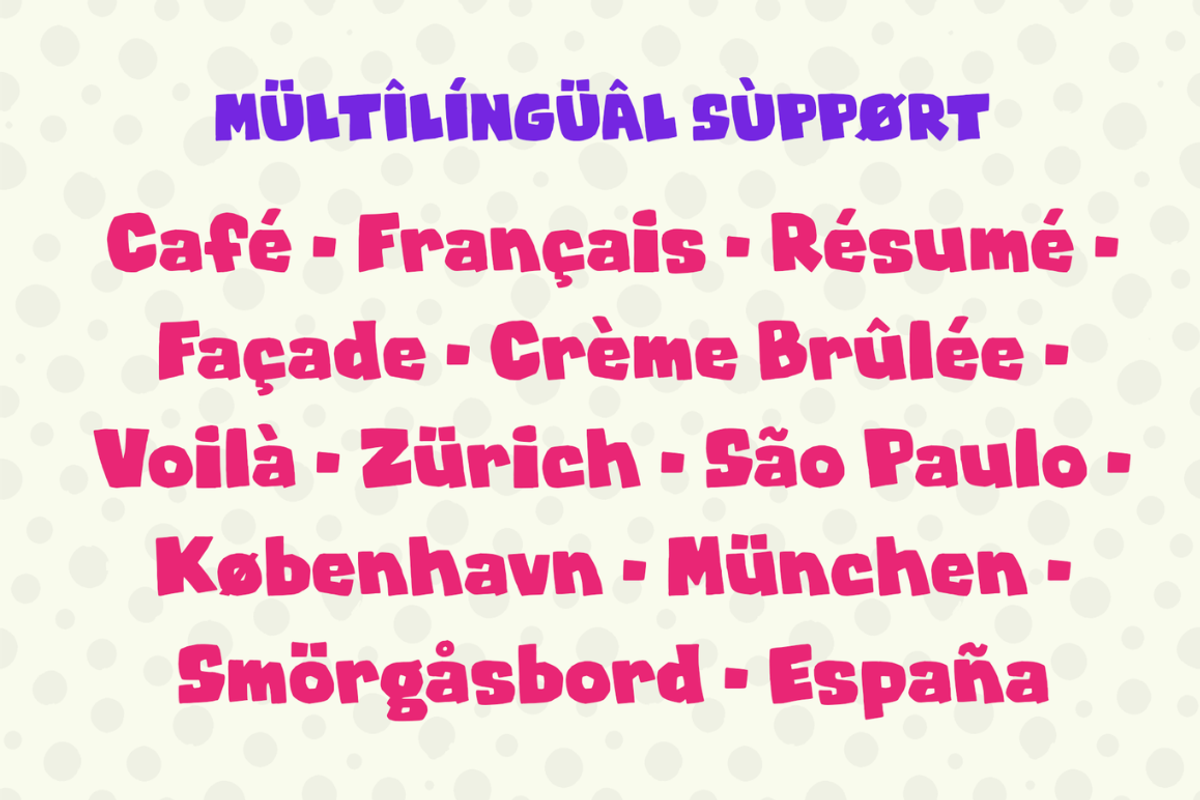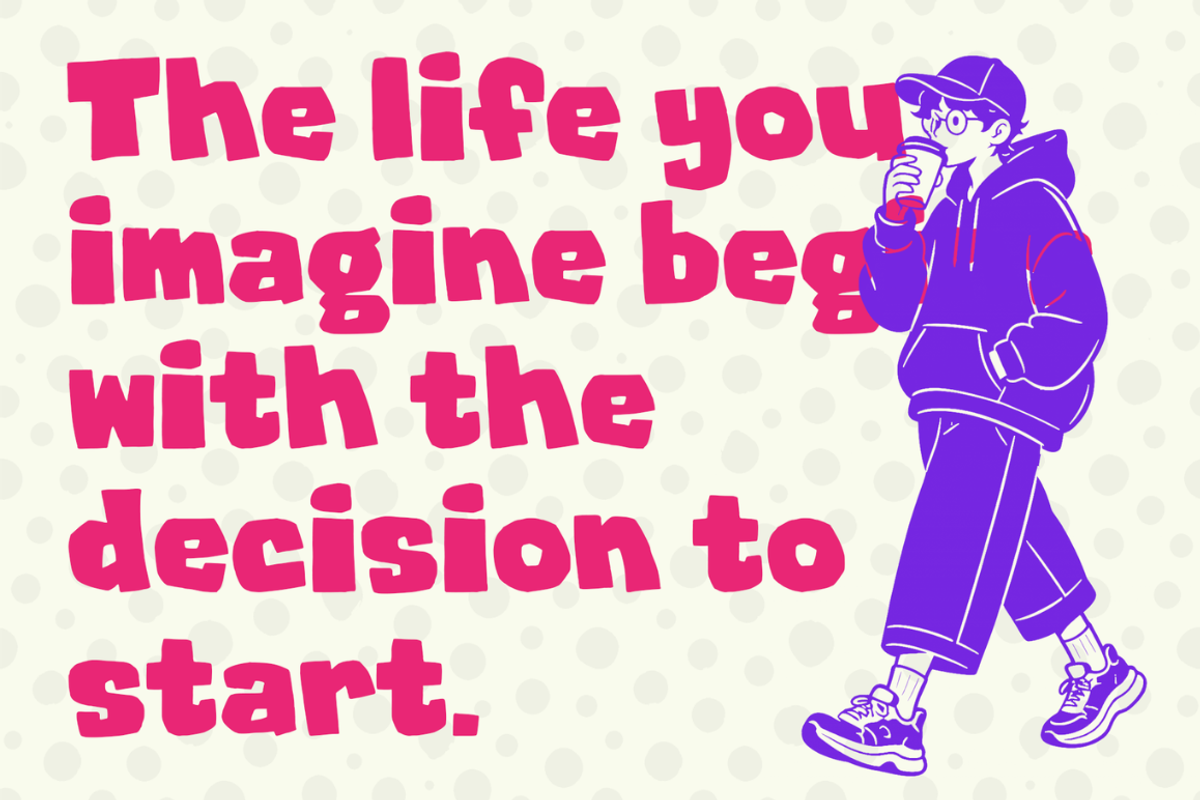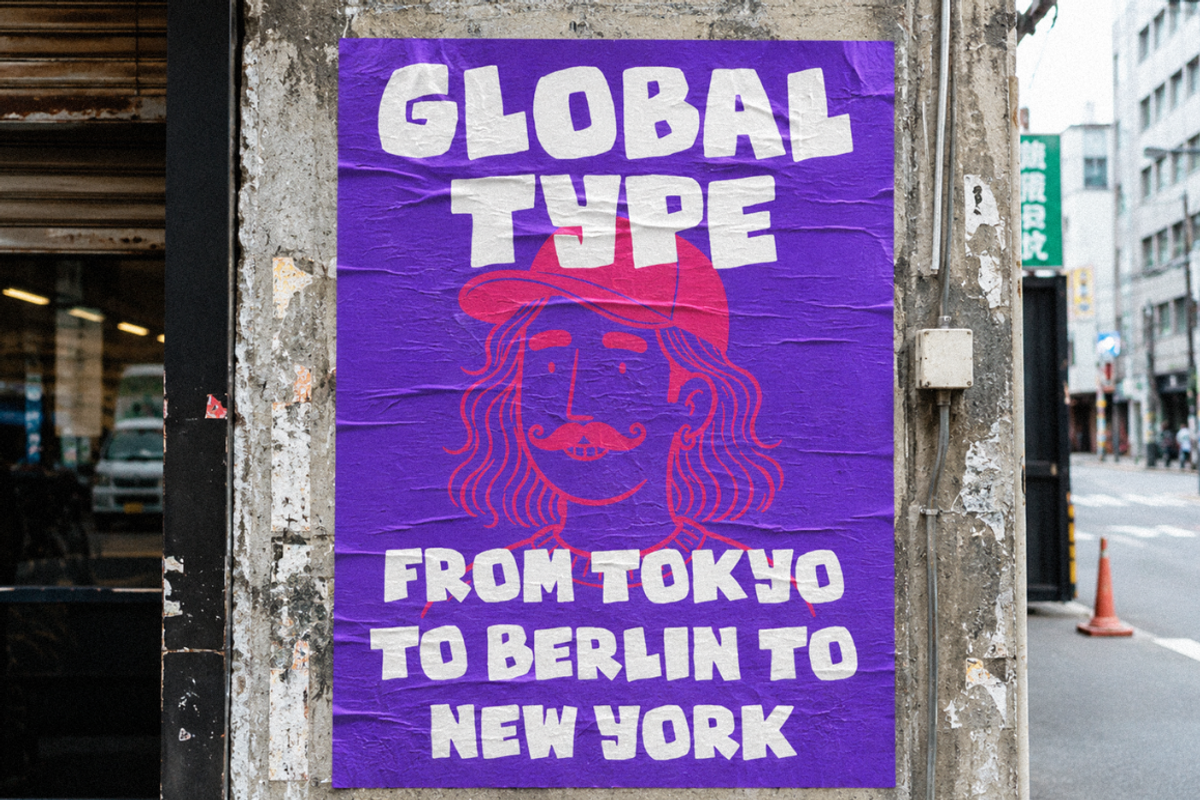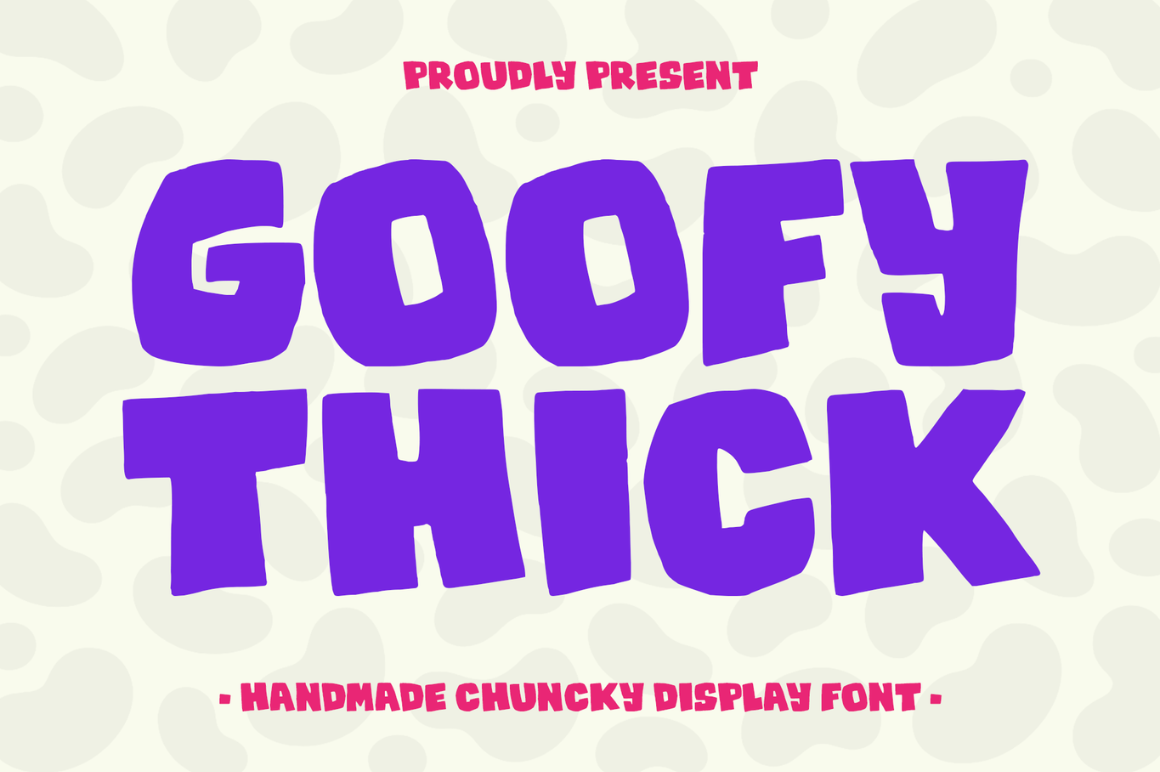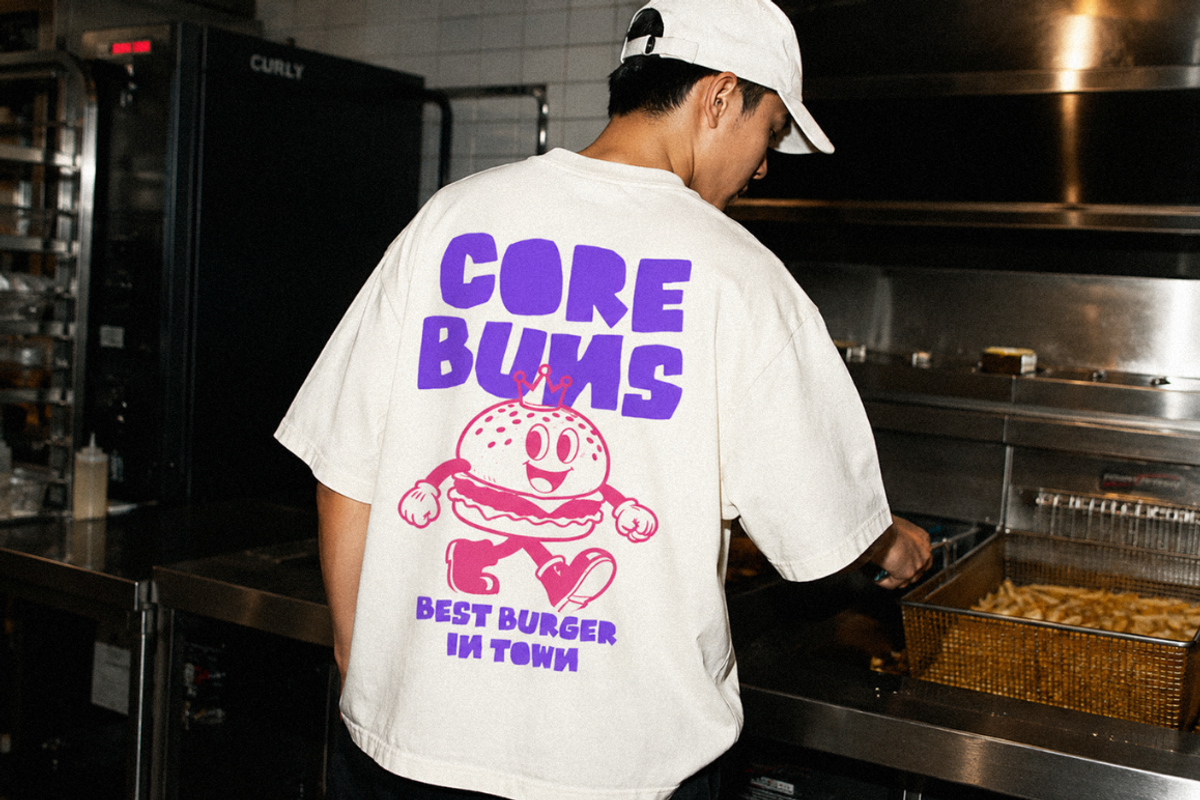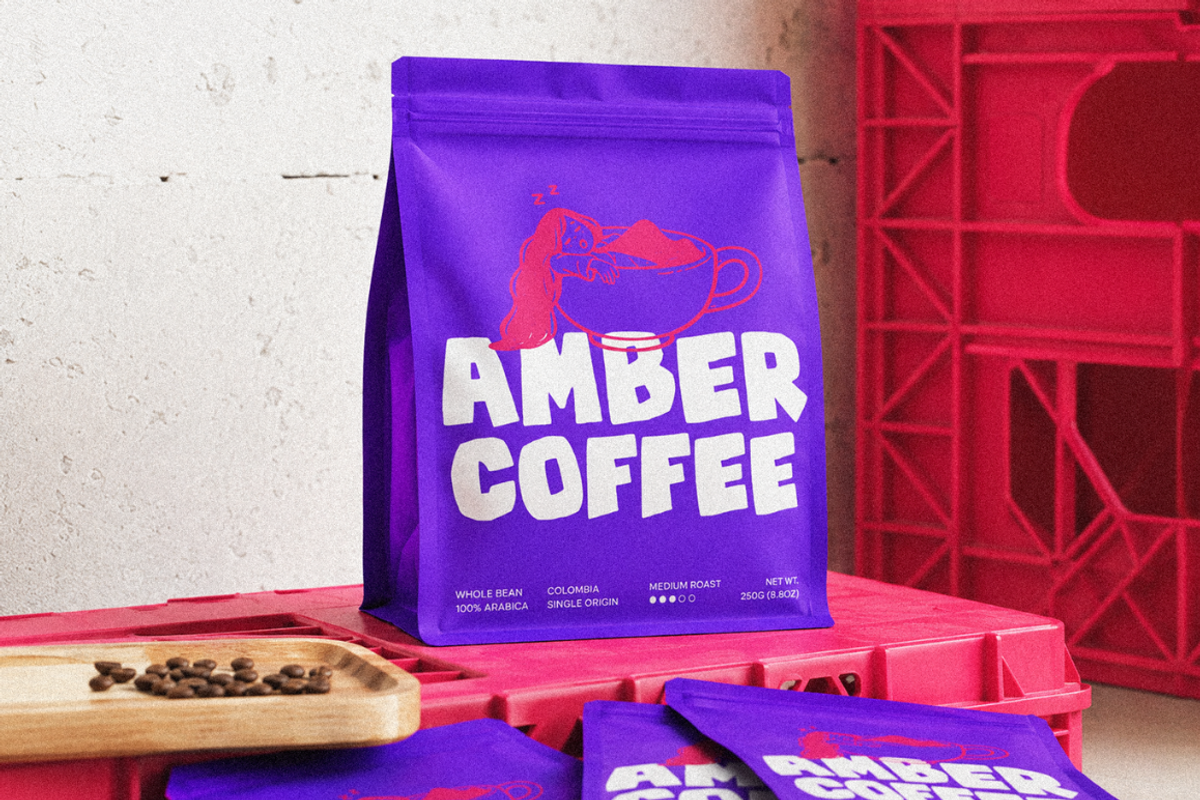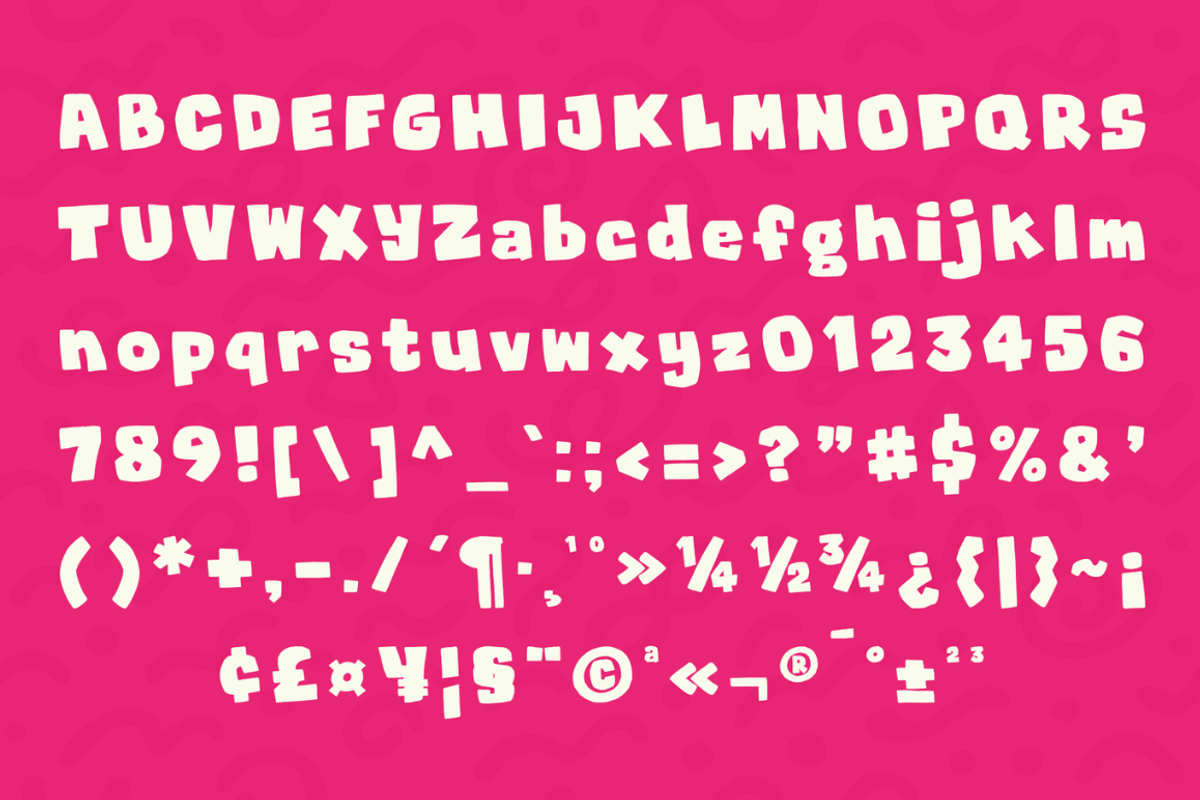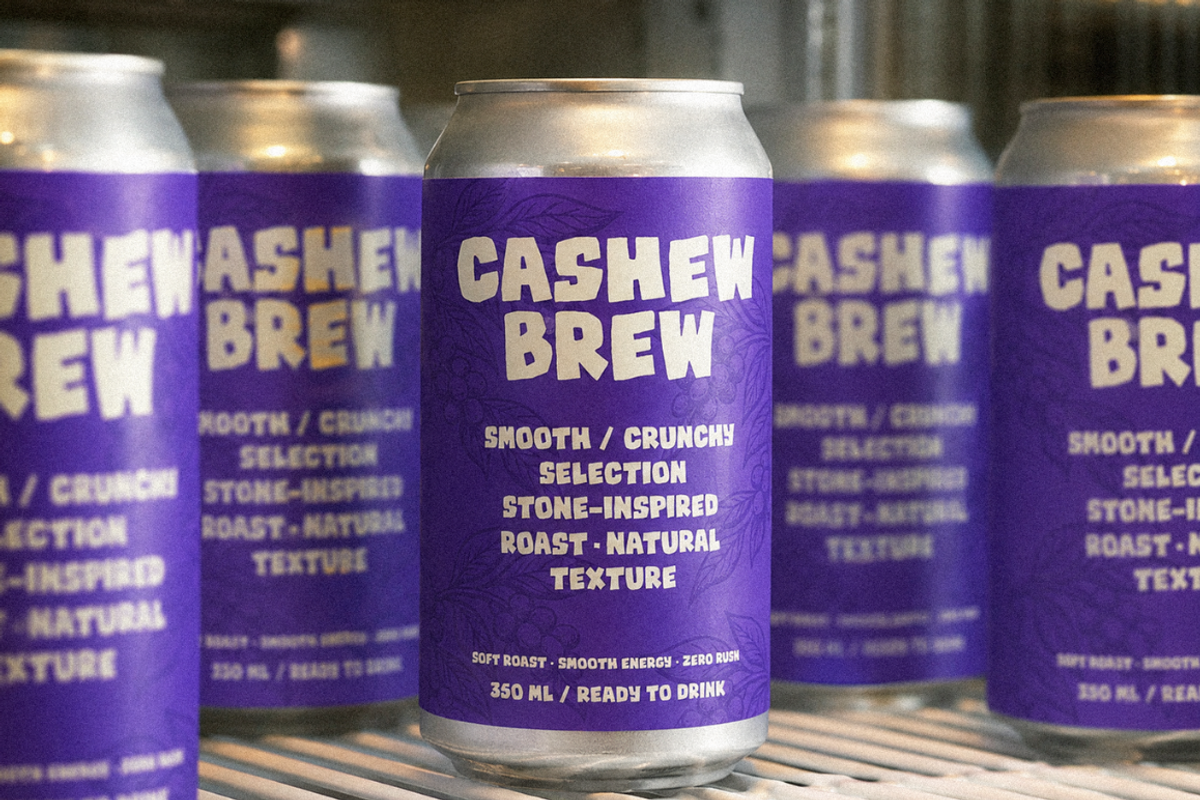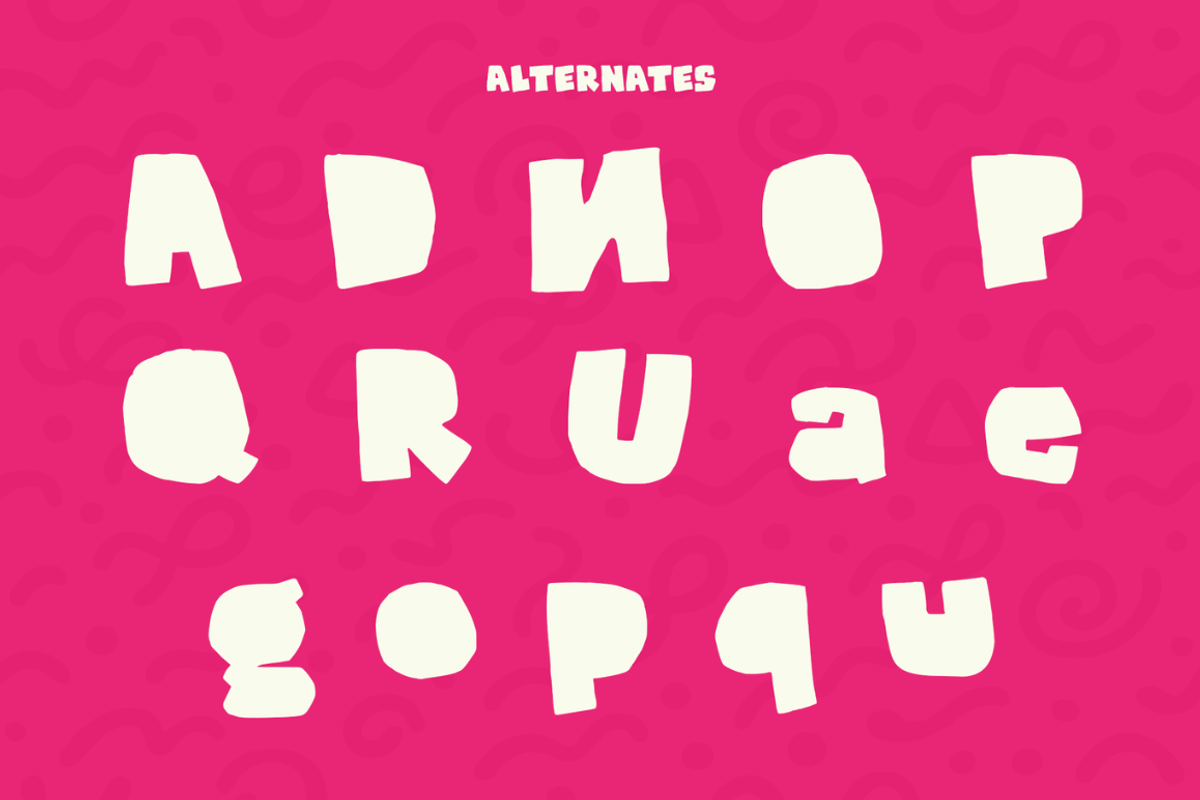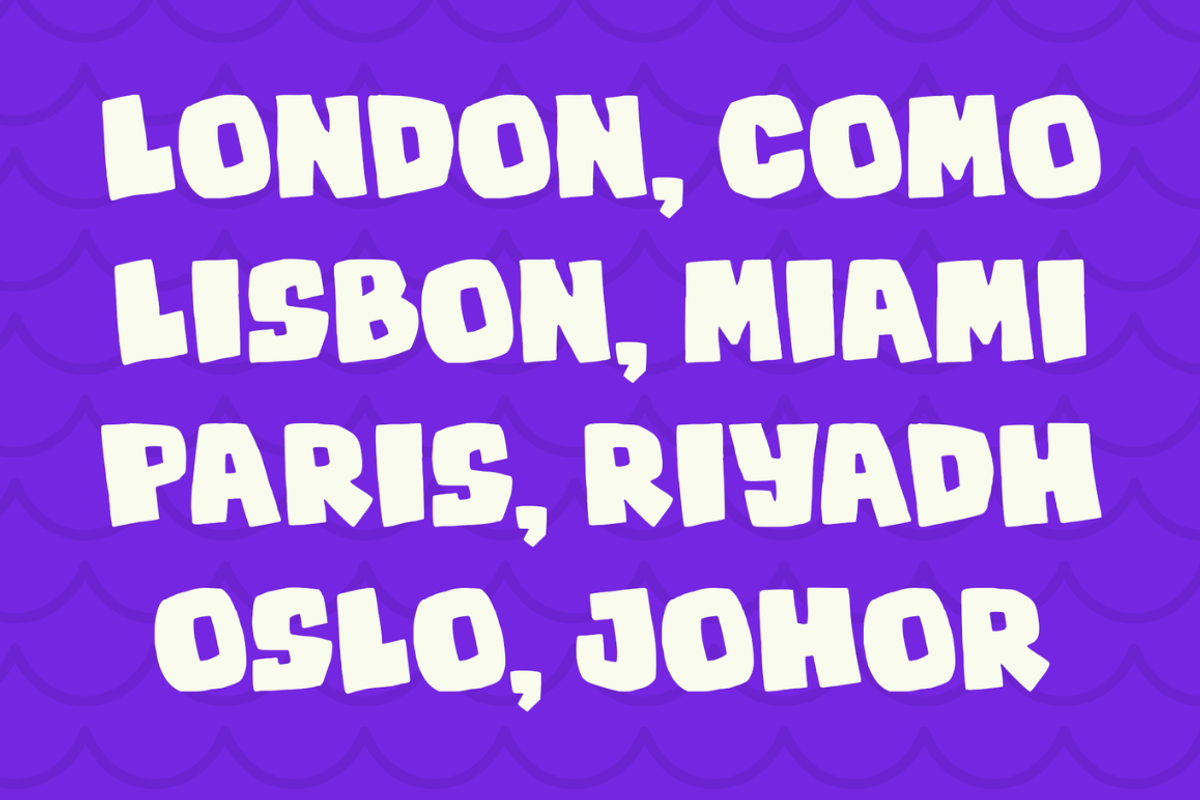
Goofy Thick - Chunky Display Font
Goofy Thick is a fun handmade chunky display font packed with bold shapes, quirky details, and playful personality. Its thick, slightly irregular letterforms create a friendly hand-drawn feel that instantly makes any design more lively and memorable. Perfect for kids’ projects, posters, stickers, packaging, apparel, cartoons, social media graphics, and playful branding, Goofy Thick is made for designs that deserve to stand out.
Bring extra fun and cheerful energy to your creative projects with Goofy Thick — bold, goofy, and full of character!